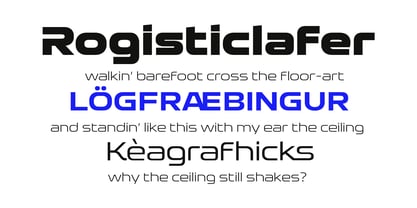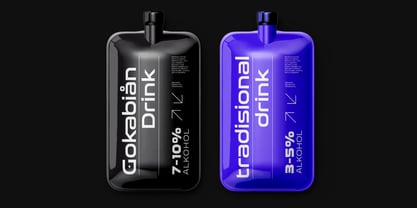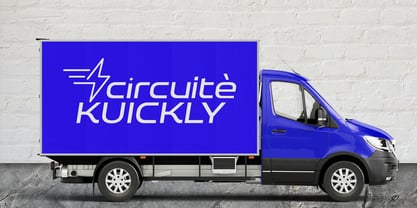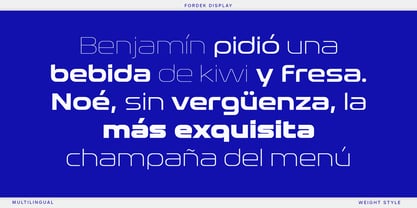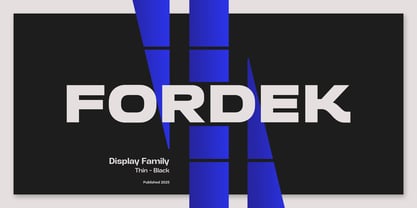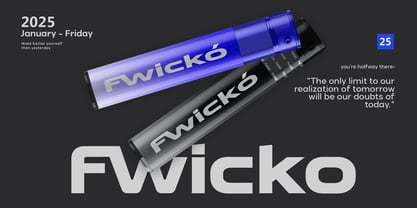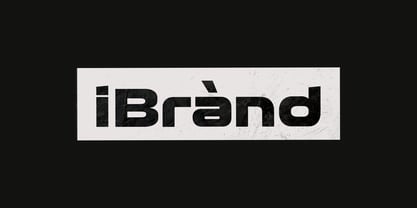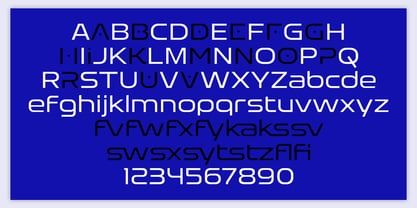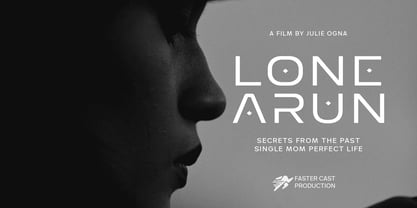
Fordek
by Isolatype
The Fordek Font Family was designed by Wildan Suprian Syah and published by Isolatype. Fordek contains 18 styles and family package options.
The Fordek font is inspired by the gemotric square, which blends elements of classic and futuristic elements, creating a fresh and charming look. Even though it looks modern, Fordek still has an elegant and polite side. The blend of modern, futuristic, and elegant auras makes it suitable for contemporary designs. The Fordek font has nine weights, alternate, and ligature options that will enhance the look of the design with a deep impression.